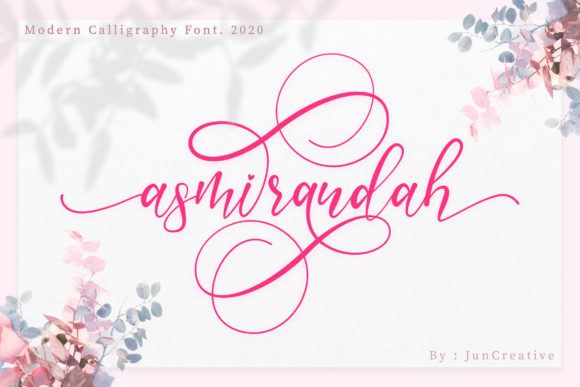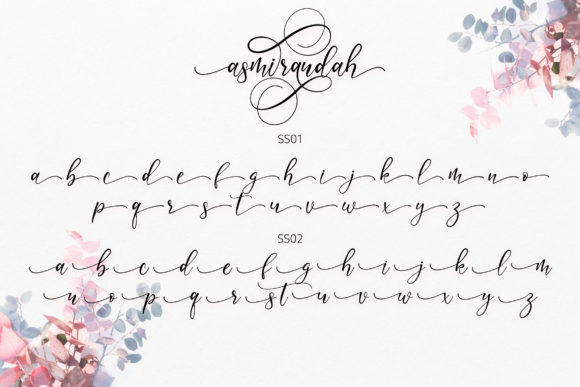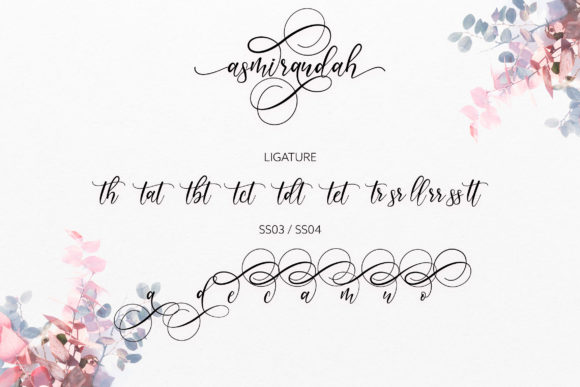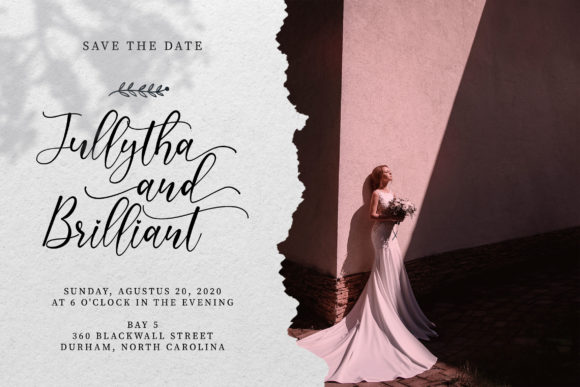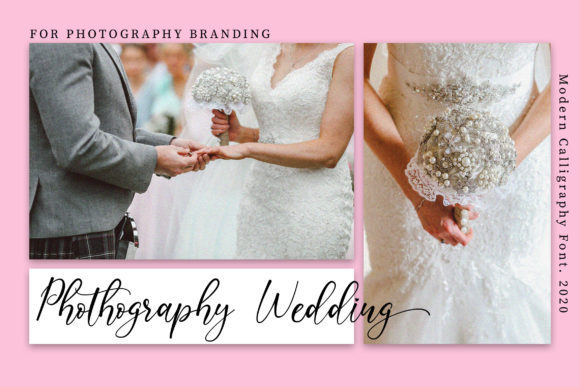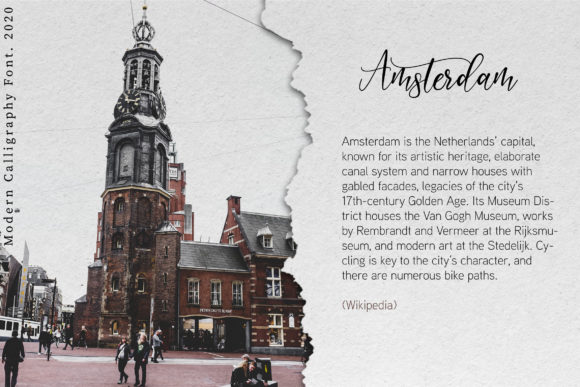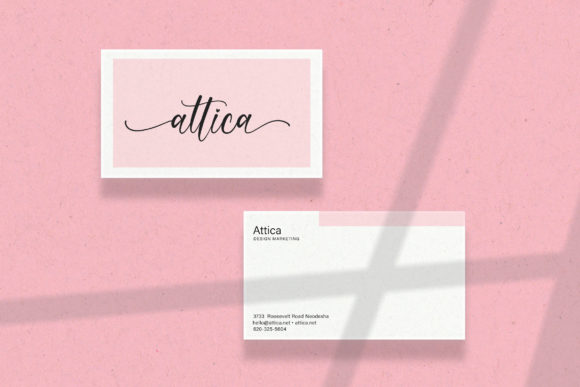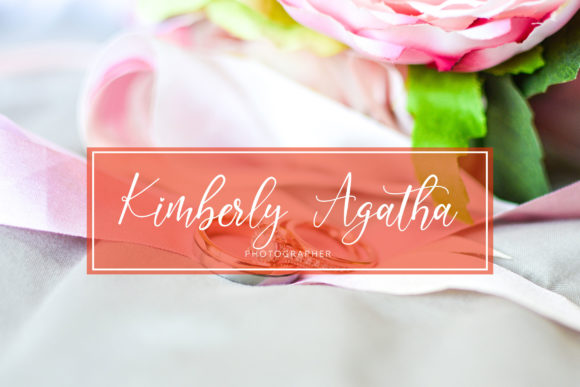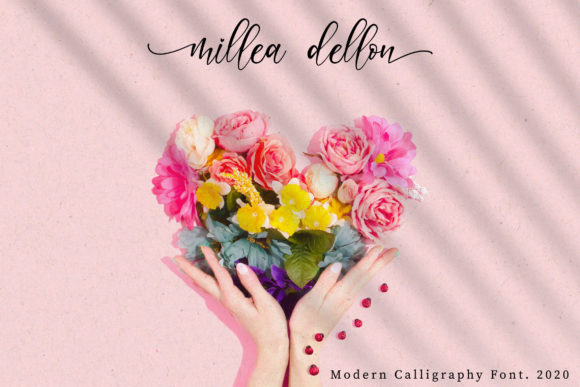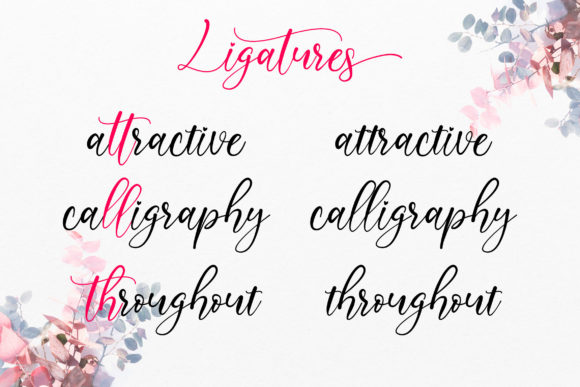
Asmirandah Font
About Asmirandah Font
Asmirandah is a gorgeous script font that will take any design project to the next level. Get inspired by its stunning and rich swashes!